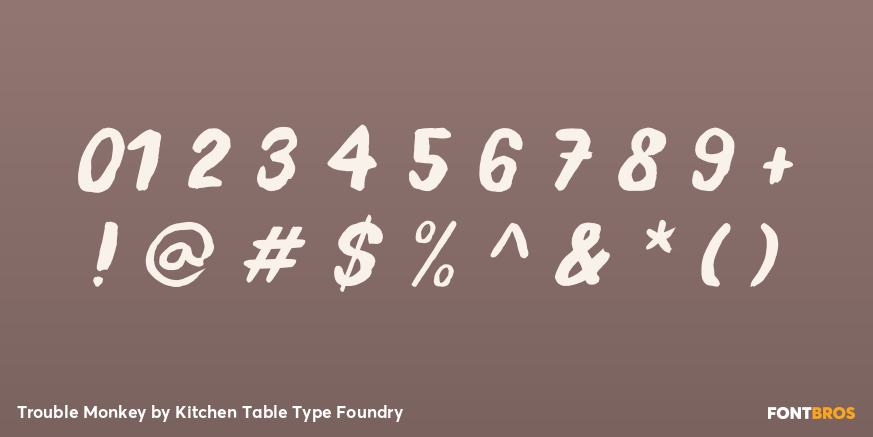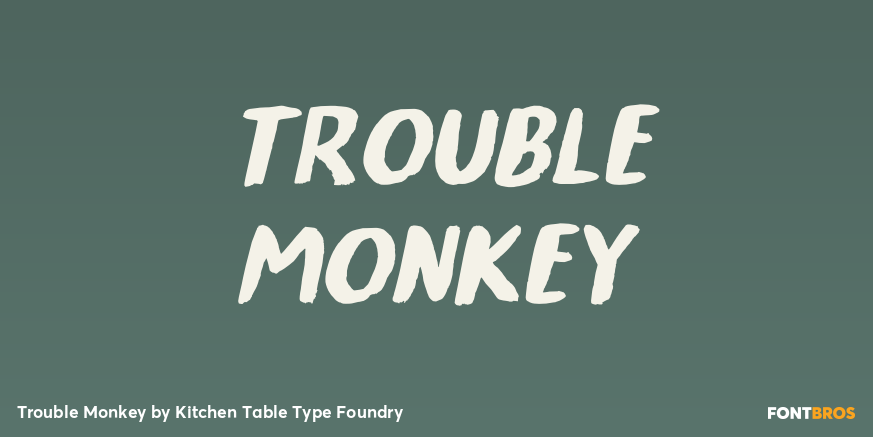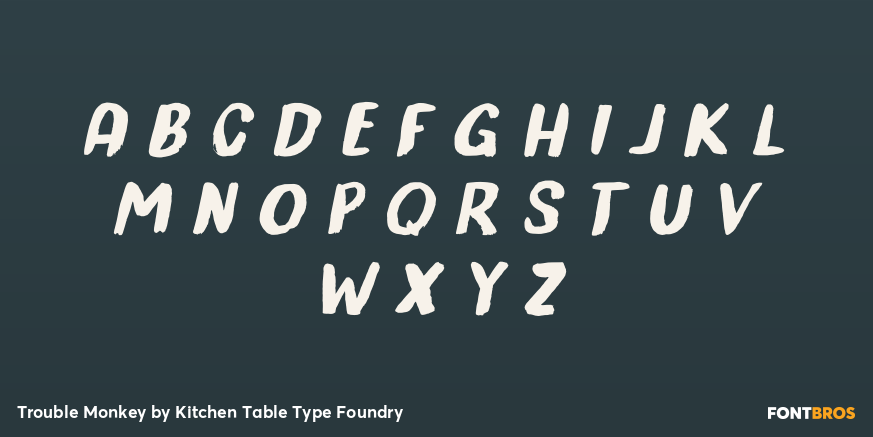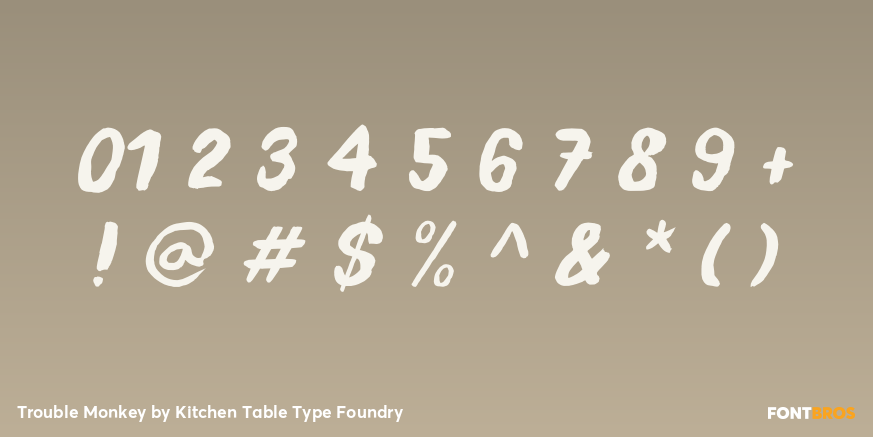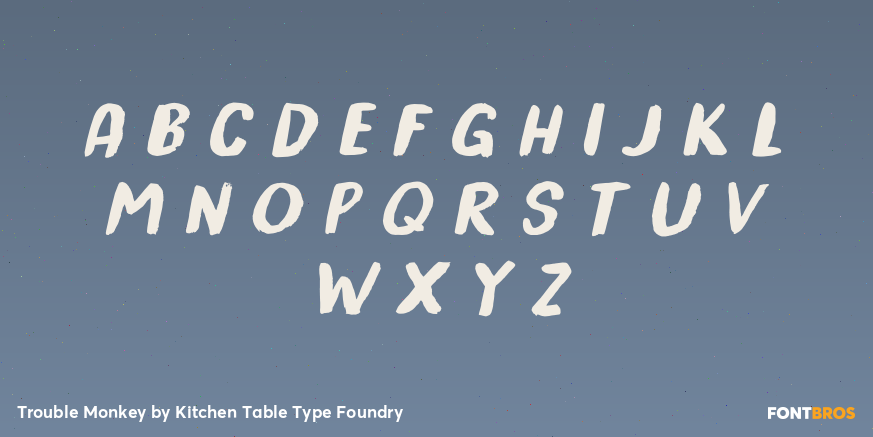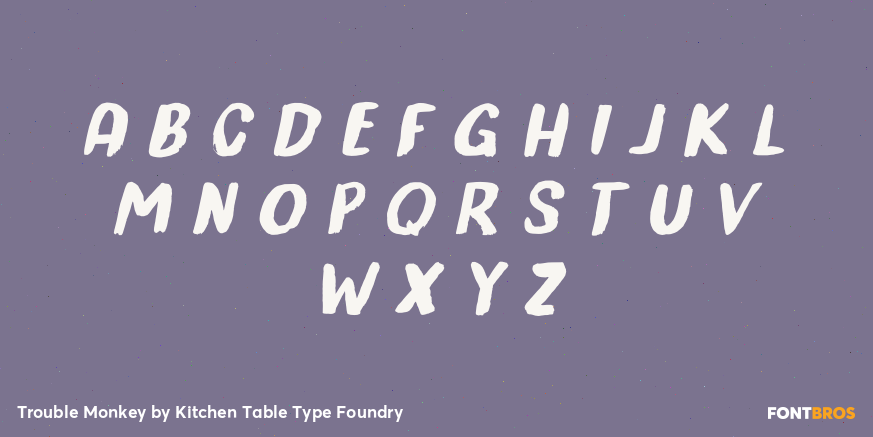
Trouble Monkey
I have a little monkey in my house. His name is Boris, he is (almost) 9 years old and he is, well, a trouble making monkey… ;-0 He loves animals and knows just about everything there is to know about them. I hope that one day he’ll study biology or animal sciences, but for now he is (almost) 9 and university is far away.
Trouble Monkey is an all caps headline font. It was made with a brush and Chinese ink and you can use it for everything that needs to catch people’s attention!